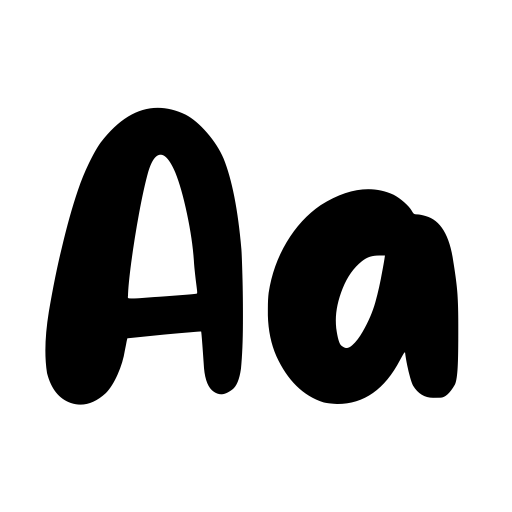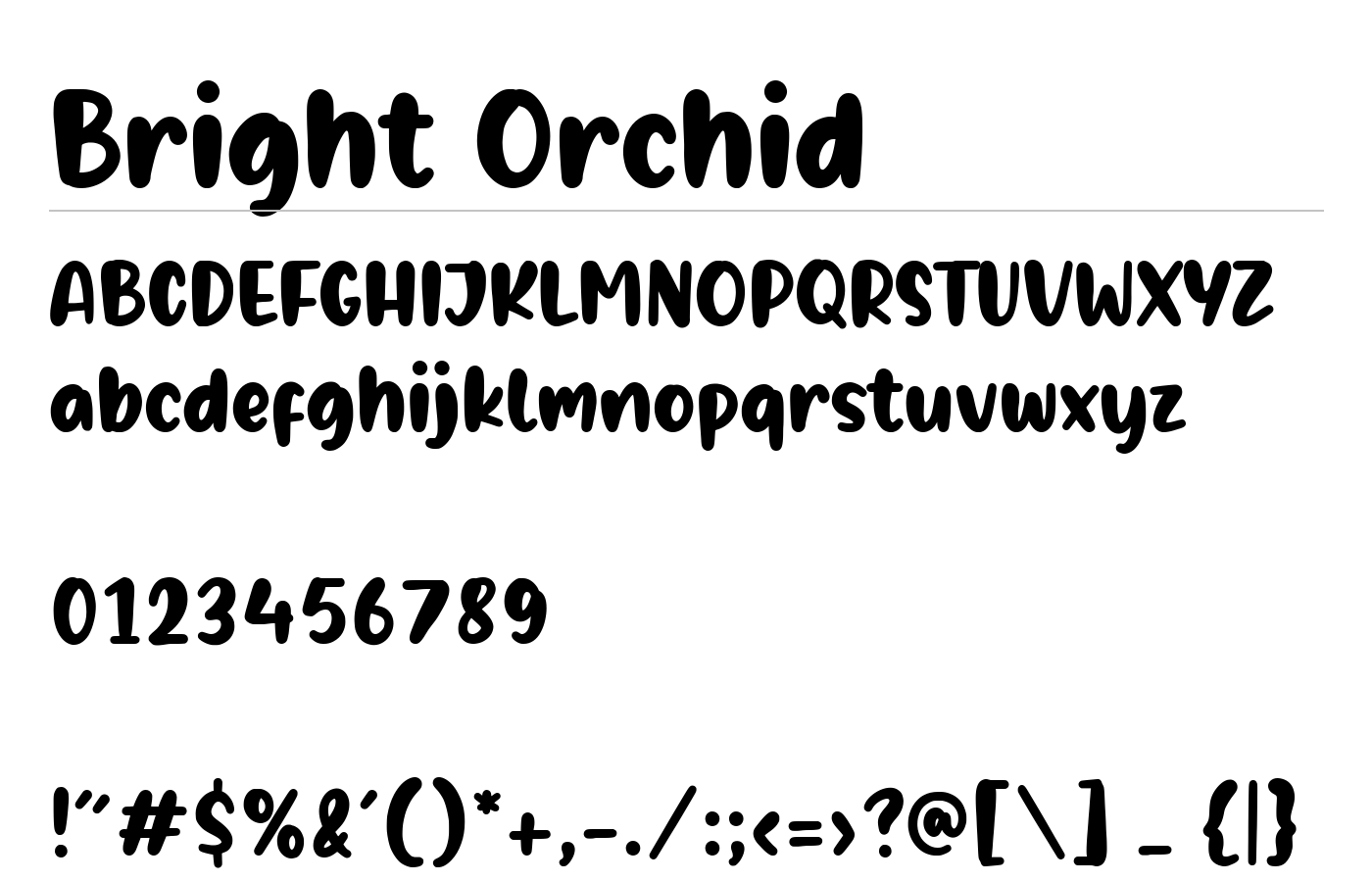
Bright Orchid is a playful and bold handwritten sans serif font with a friendly, casual feel, featuring rounded, thick strokes and a slightly condensed structure. Its lively letterforms and clear readability make it perfect for fun branding, children’s materials, posters, and informal headlines where a warm, approachable tone is desired. This font brings energy and personality to any design, making it ideal for creative projects seeking a cheerful and engaging style.
Bright Orchid Font
About Bright Orchid Font